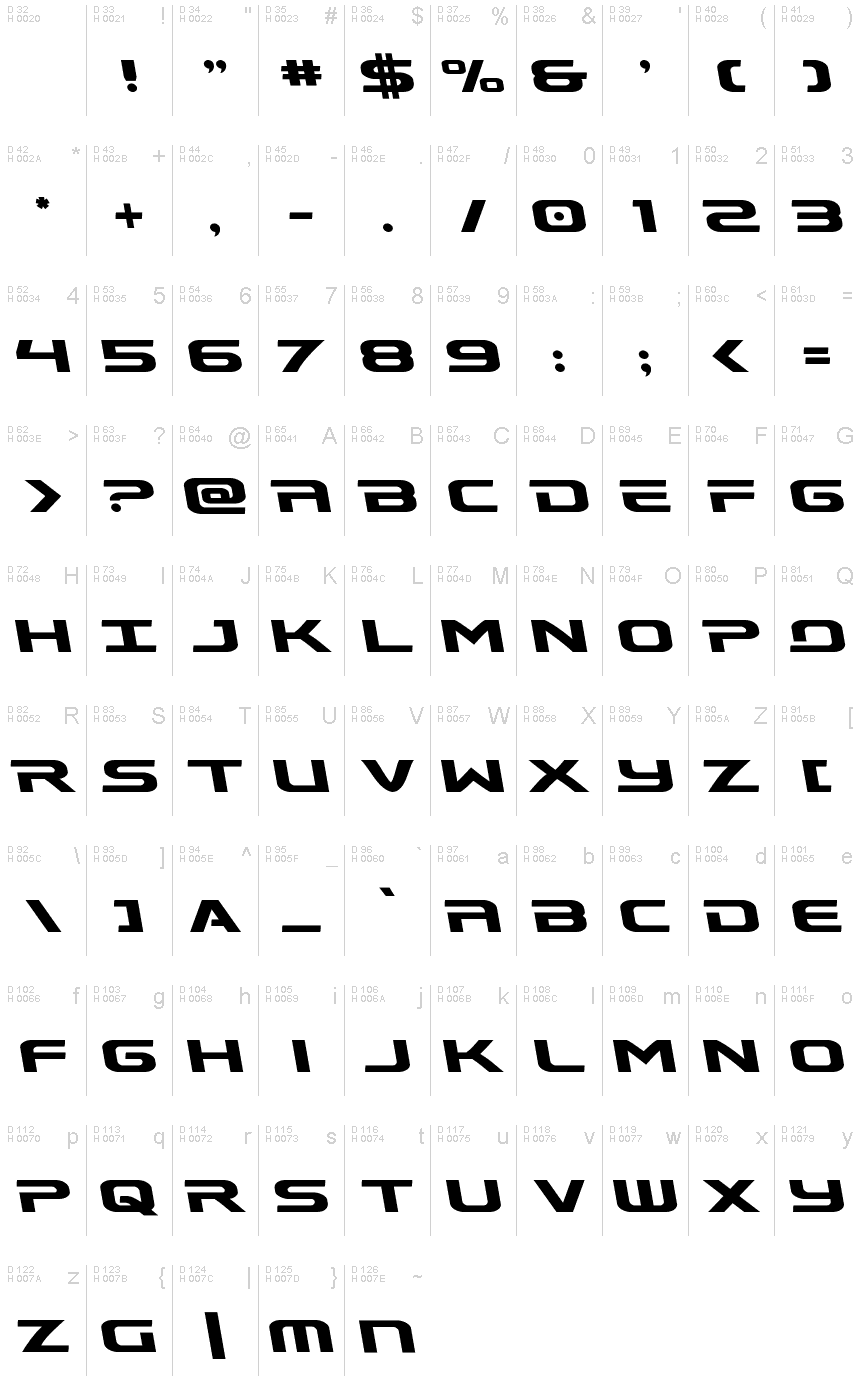
Drius Leftalic, an impressive addition to the Drius font family designed by Iconian Fonts, is a striking display typeface. With its futuristic style and bold weight, this font is perfect for projects that aim to make a strong statement.
Its extra-expanded width adds an element of uniqueness and modernity, making it suitable for eye-catching logos, innovative advertising campaigns, and captivating website designs. Drius Leftalic effortlessly combines elegance with a touch of edginess, making it the ideal choice for any project that demands attention and stands out from the crowd.